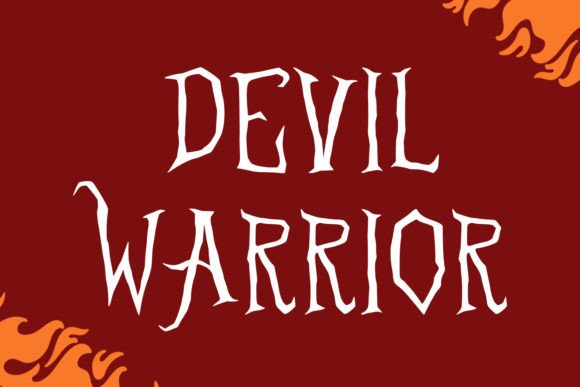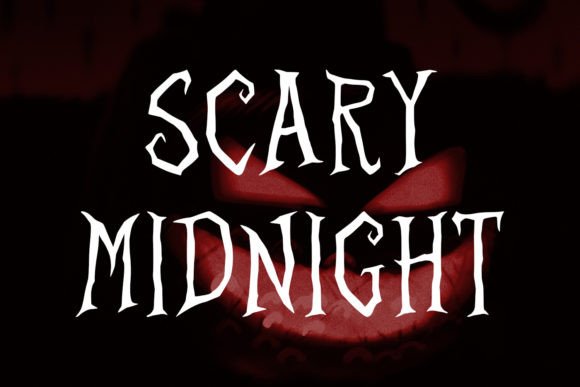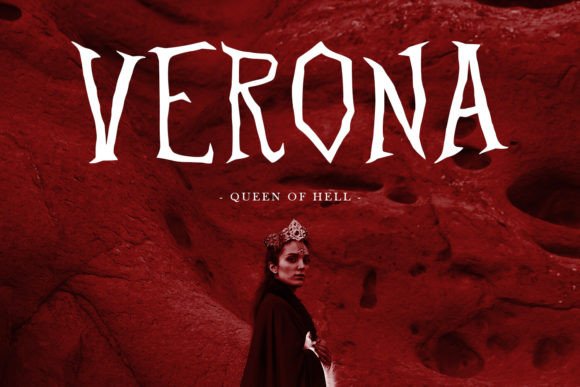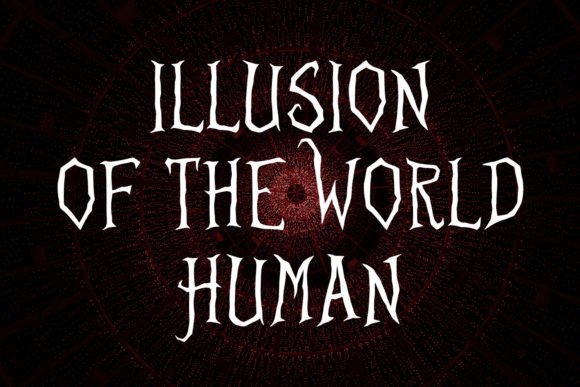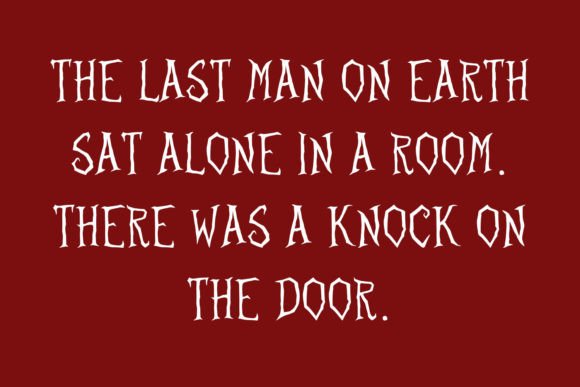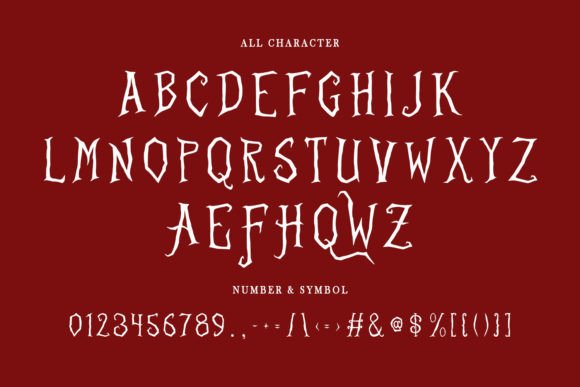
Introduction to Halqueen Font
Halqueen is a spooky and eye-catching font perfect for horror themes.
Its creepy and dramatic style makes it ideal for Halloween decorations, scary movie posters, and haunted house flyers The letters look eerie and bold, creating a chilling atmosphere in any design.
Key Features of Halqueen Font